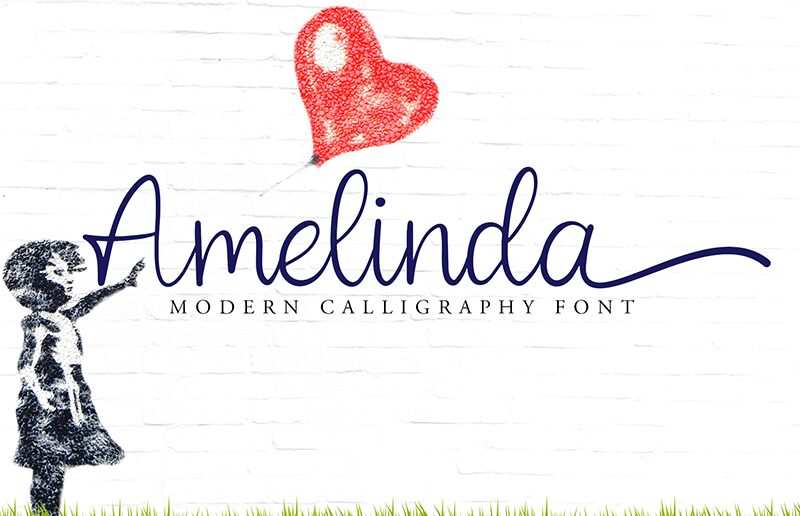
Introducing Amelinda, a modern handwritten font designed by Choirul Creator. With its delicate and smooth curves, Amelinda brings a unique touch to your projects. It's perfect for invitations, logos, greeting cards and any creative project that requires an eye-catching look. Its light strokes add a sense of playfulness while still keeping a stylish vibe. Bring your designs to life with Amelinda!
Amelinda
Amelinda by Choirul Creator